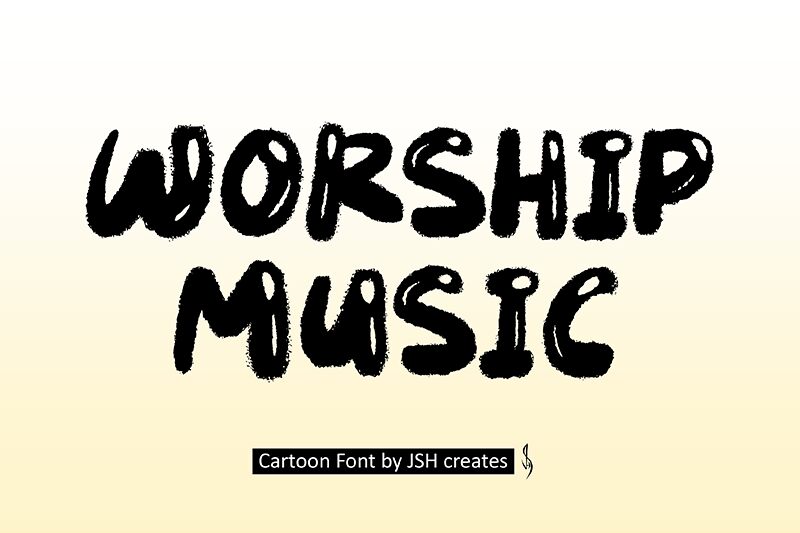
Worship Music font was designed by JSH Creates. This fun, bold, cartoon font is perfect for any of your display needs. It's full of energy and movement with its playful appearance! It has an organic feel with high contrast in each character and rounded edges throughout the entire alphabet to make it seem hand-drawn. Uppercase letters are both great options when using this typeface because they're all unique enough that they can stand alone on their own without looking too similar but still complimenting one another nicely when used together either way works wonderfully well depending upon how much space you need!
Use it for logos, kids brands designs - like toys, websites, book covers or school products and more children-like themed projects calling for a happy feel! It offers countless possibilities to be inspired! Also what would be a fun design idea is this would look cute on food packages like birthdays’ cakes in bakeries where they sell cupcakes so could also use them as cupcake toppers too maybe even put these onto cards such thank you notes if got invited somewhere special such party wedding shower anniversary etc…